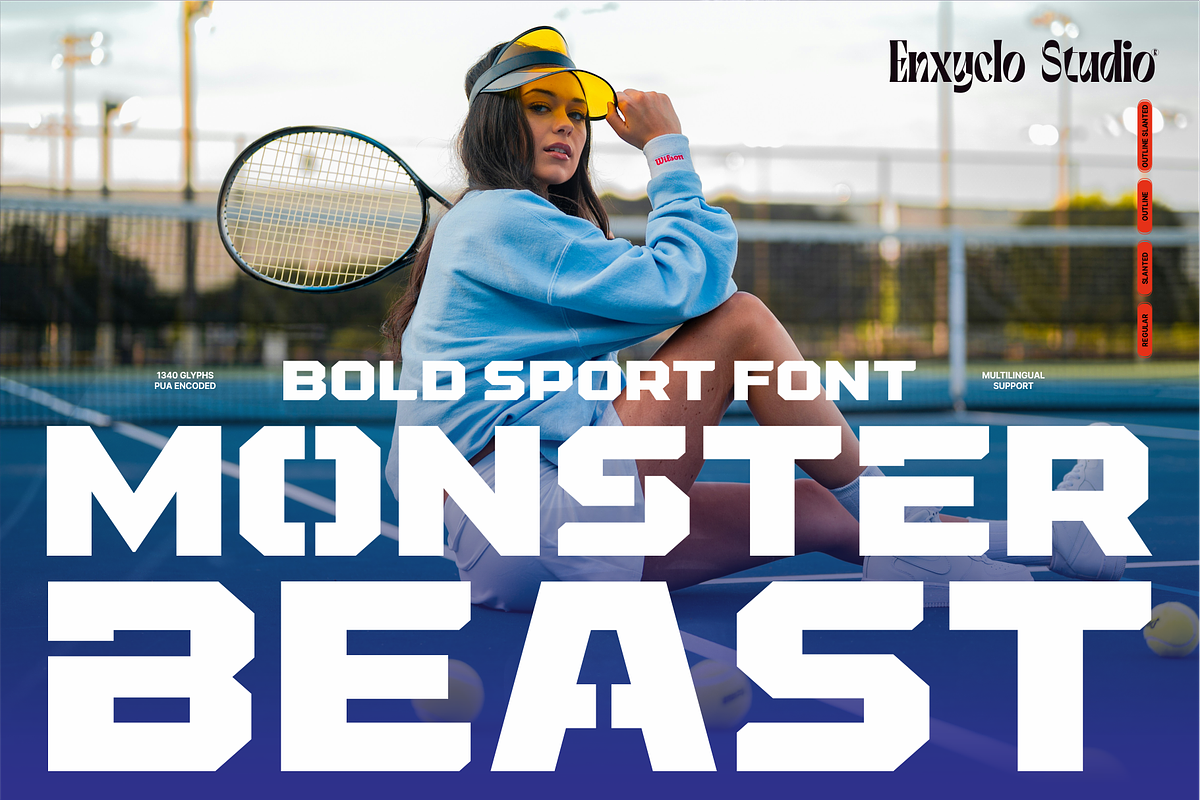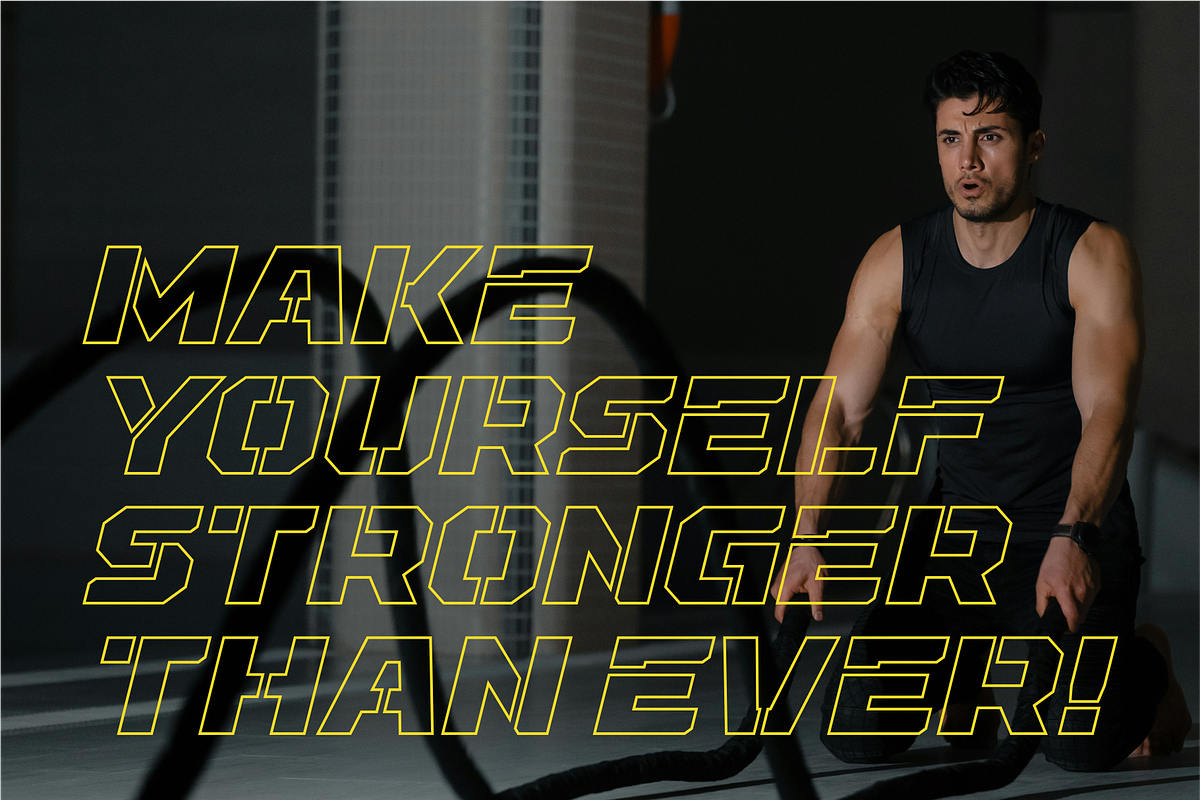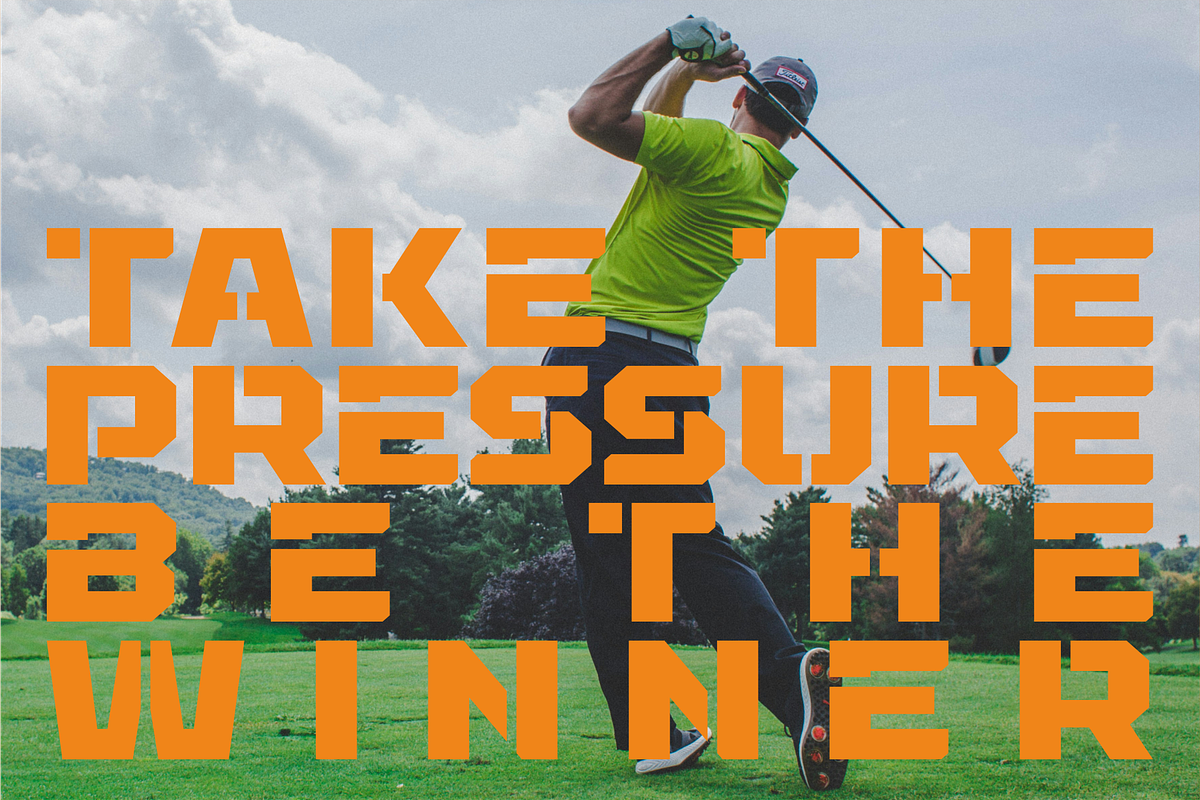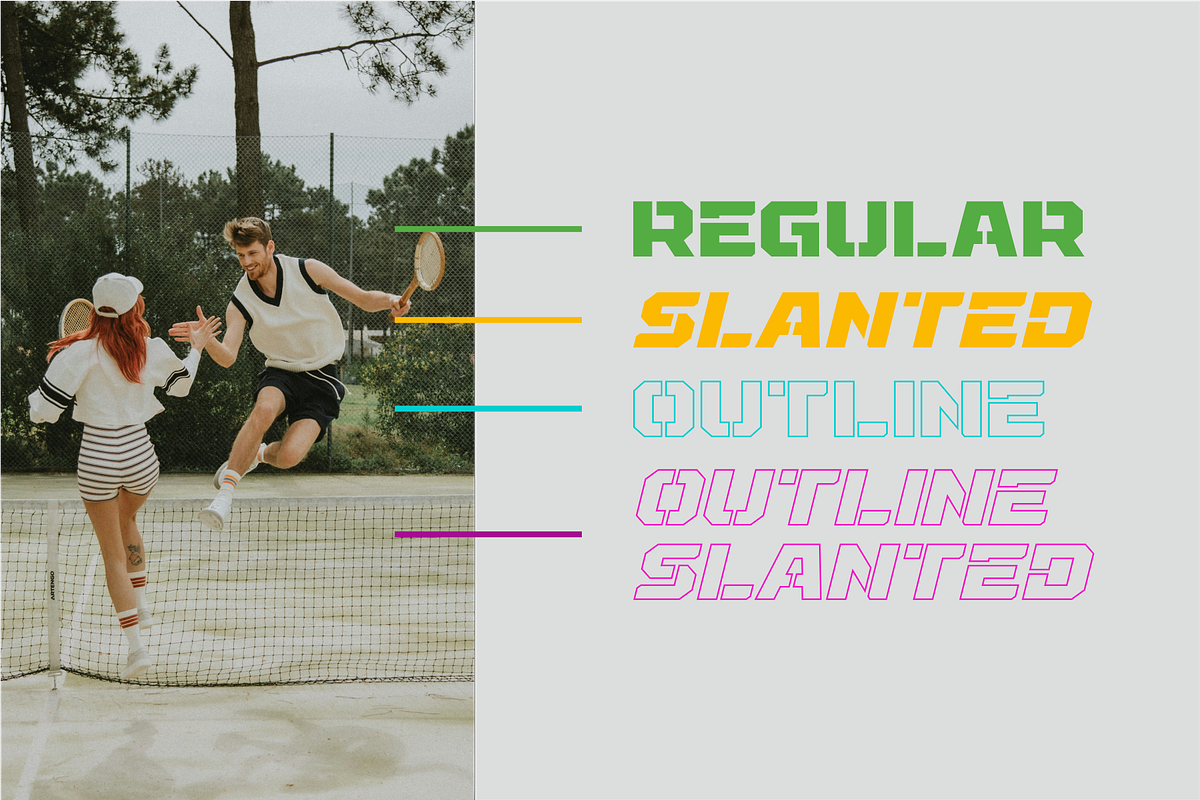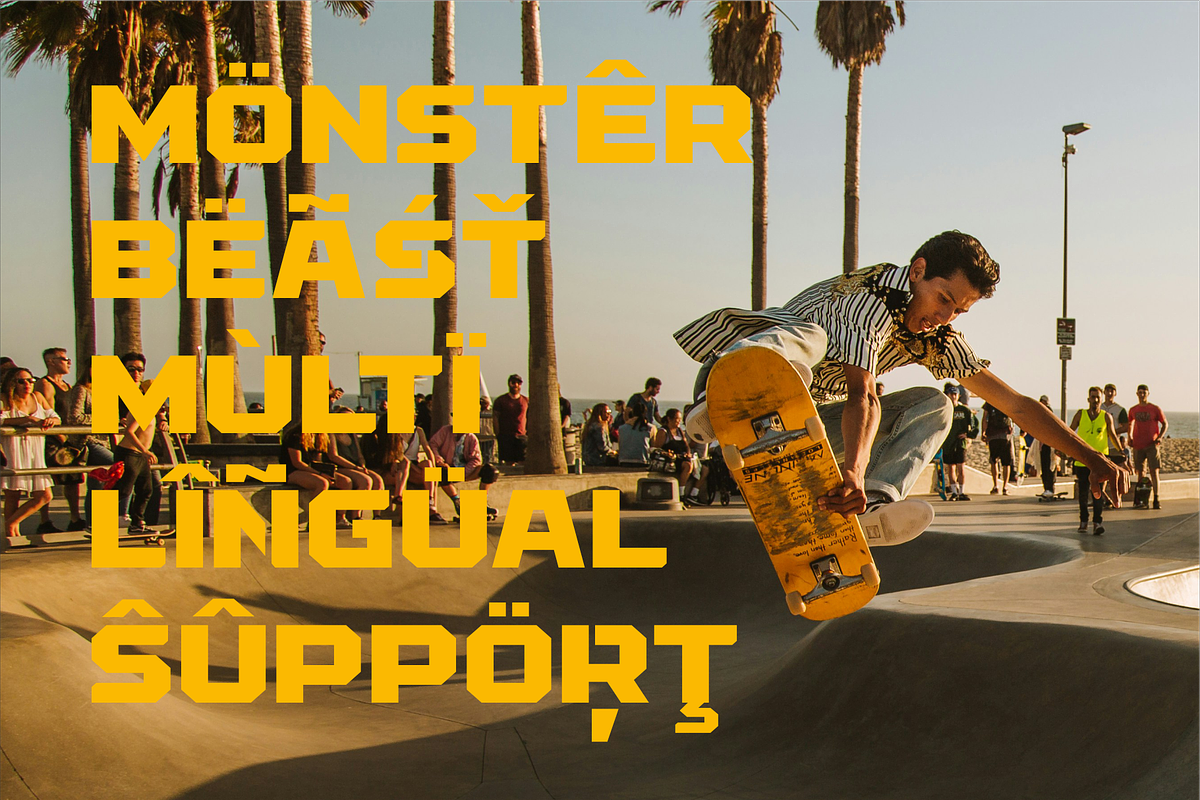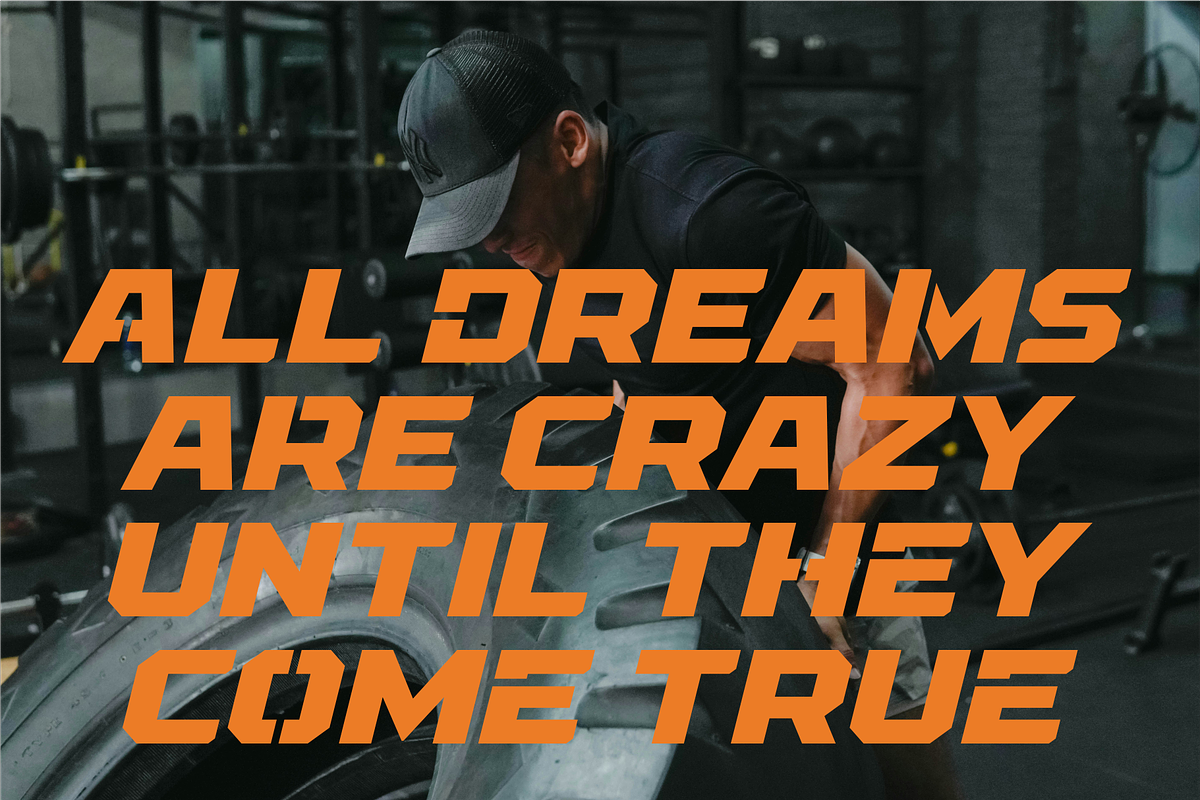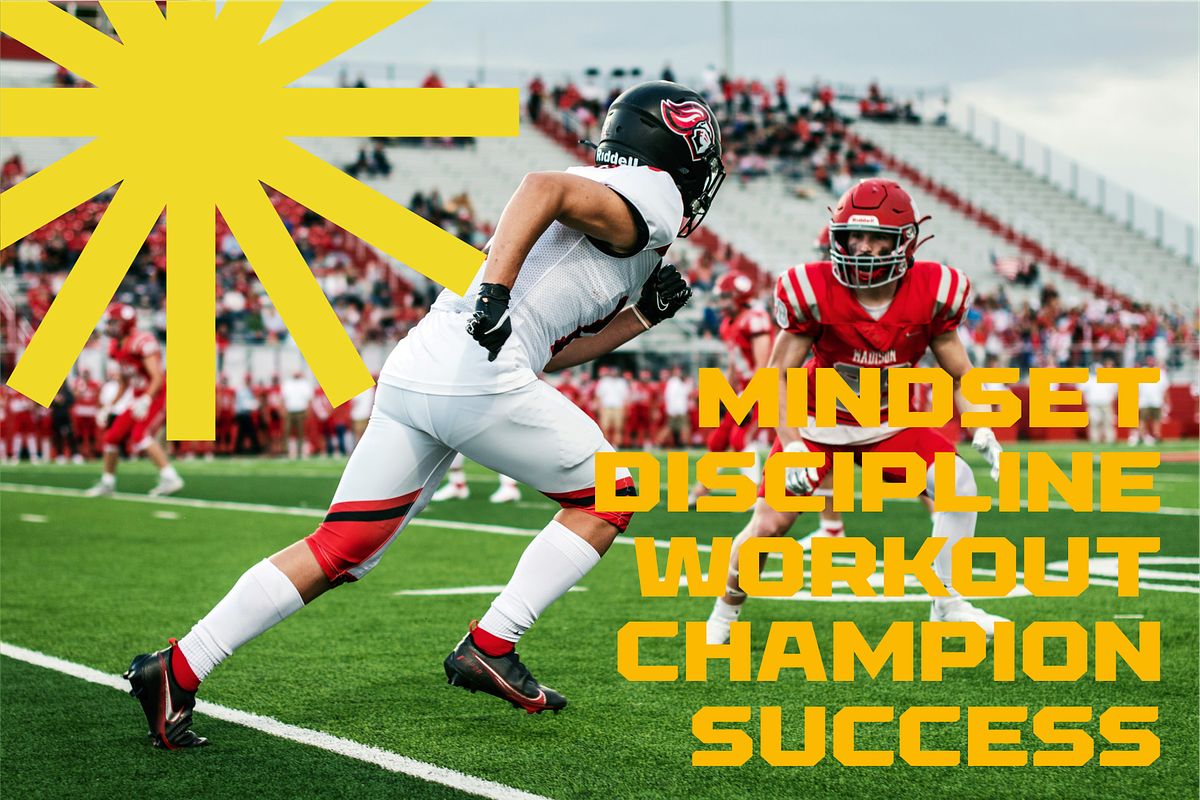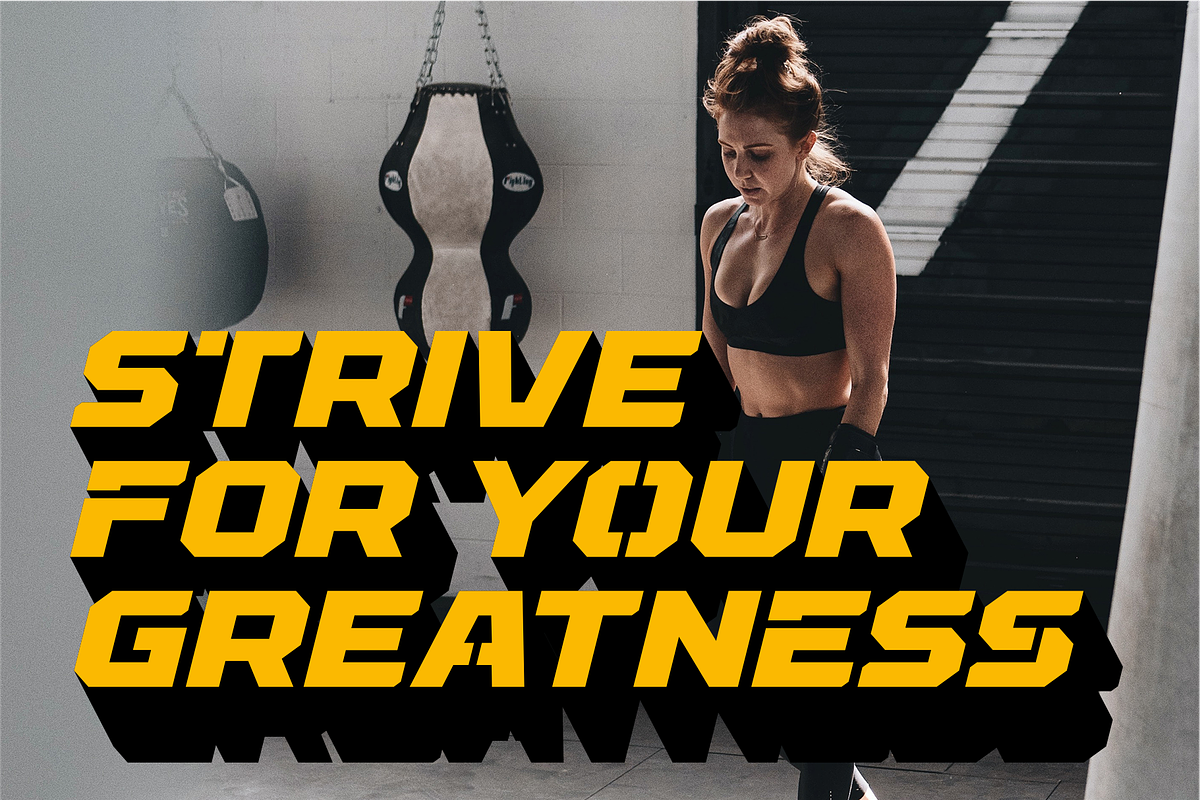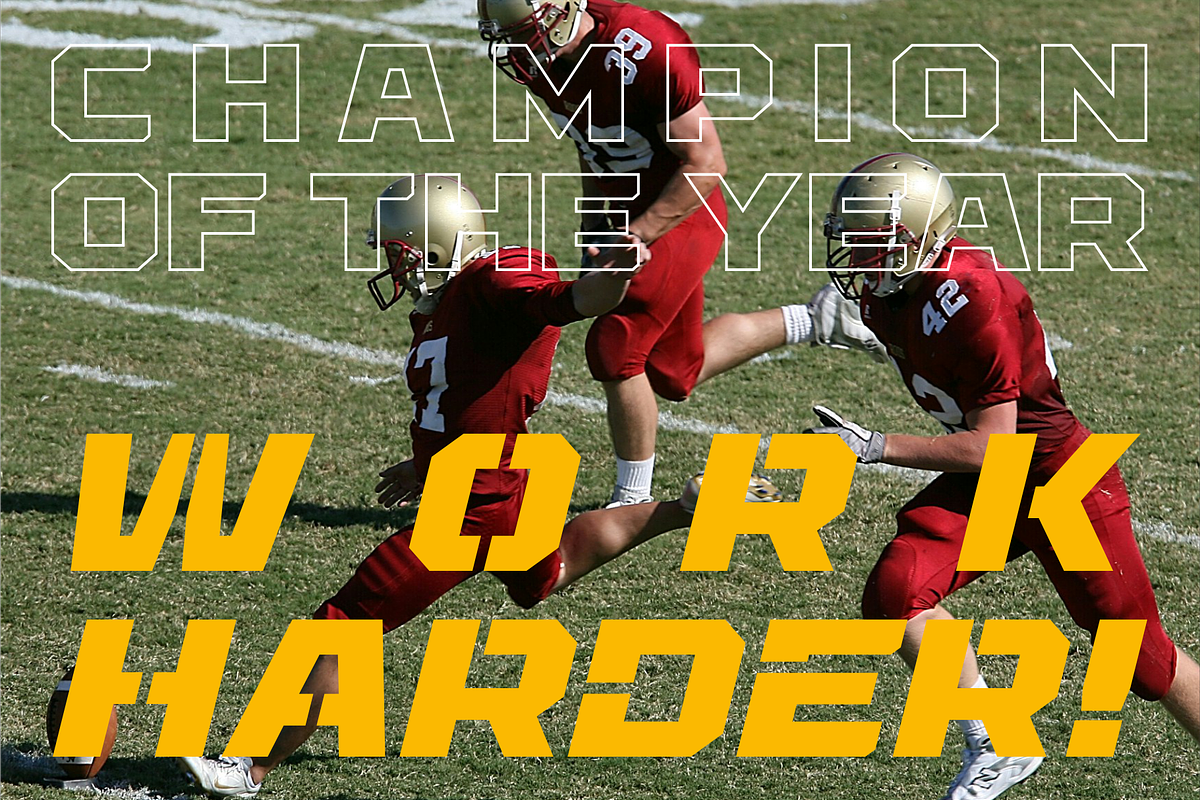
NCL Monster Beast - Sport Gym Font
NCL MONSTER BEAST is a gym sport font. Masterfully designed to become a true favorite, this font has the potential to bring each of your creative ideas to the highest level! It was purposely crafted to be used in large point sizes, although it doesn’t lose its magic in small point sizes. It is perfect for headline, billboard, magazines, website, titles, poster, branding, and logos. No matter the topic, this font will be an incredible asset to your fonts’ library, as it has the potential to elevate any creation. With this beautiful font, absolutely you can make your project stand out from the rest.
- 4 Style: Regular, Slanted, Outline, Outline Slanted
- Contains 335 Glyphs for Each Style and 1340 Glyphs for Total
- Numeral, Punctuation & Symbols
- Support for 79 Languages: Afrikaans, Albanian, Asu, Basque, Bemba, Bena, Breton, Catalan, Chiga, Cornish, Czech, Danish, Dutch, Embu, English, Esperanto, Estonian, Filipino, Finnish, French, Friulian, Galician, Gusii, Hungarian, Indonesian, Irish, Italian, Kabuverdianu, Kalenjin, Kamba, Kikuyu, Kinyarwanda, Latvian, Lithuanian, Luo, Luxembourgish, Luyia, Machame, Makhuwa-Meetto, Makonde, Malagasy, Manx, Meru, Morisyen, North Ndebele, Norwegian Bokmål, Norwegian Nynorsk, Nyankole, Oromo, Portuguese, Quechua, Romansh, Rombo, Rundi, Rwa, Samburu, Sango, Sangu, Scottish Gaelic, Sena, Shambala, Shona, Slovak, Soga, Somali, Spanish, Swahili, Swedish, Swiss German, Taita, Teso, Turkish, Uzbek (Latin), Volapük, Vunjo, Walser, Welsh, Western Frisian, Zulu.